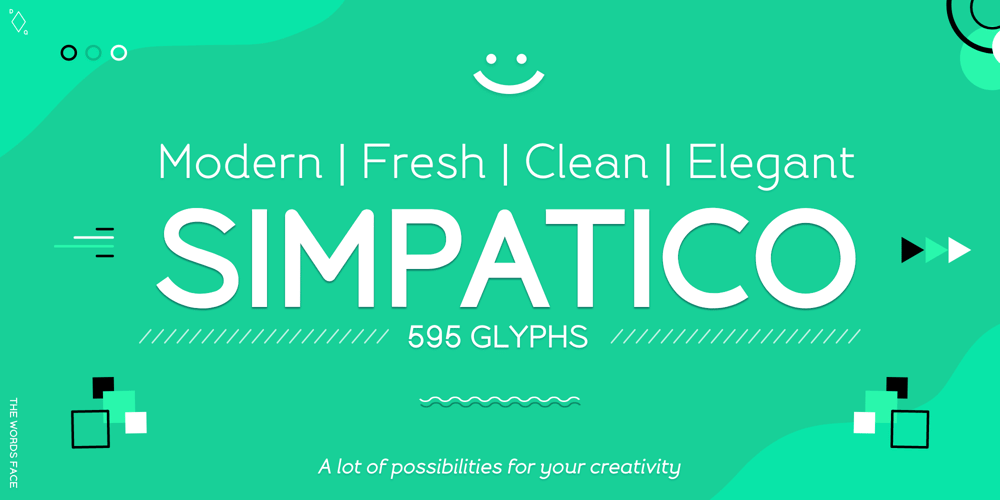
Simpatico Font Family was designed by Dario Quadri and published by The Words Face. Simpatico contains 8 styles and family package options. Simpatico is a clean and fresh looking font, with a … nice character! (Simpatico in Italian language is a nice and funny behavior).Designed in two ways: standard and italic; each of which is divided into four weights: light, regular, semi-bold and bold.Simpatico is a versatile font!It has 595 glyphs including: letters that have been drawn with different accents for particular languages; ligatures between characters (eg fl, fi etc …); mathematical symbols and signs; differentiation between capital “i” and lowercase “l”; alternatives for characters like “a”; and much more.Simpatico is a multi-ethnic font!In addition to the glyphs commonly used, Simpatico is also in Greek and Cyrillic.